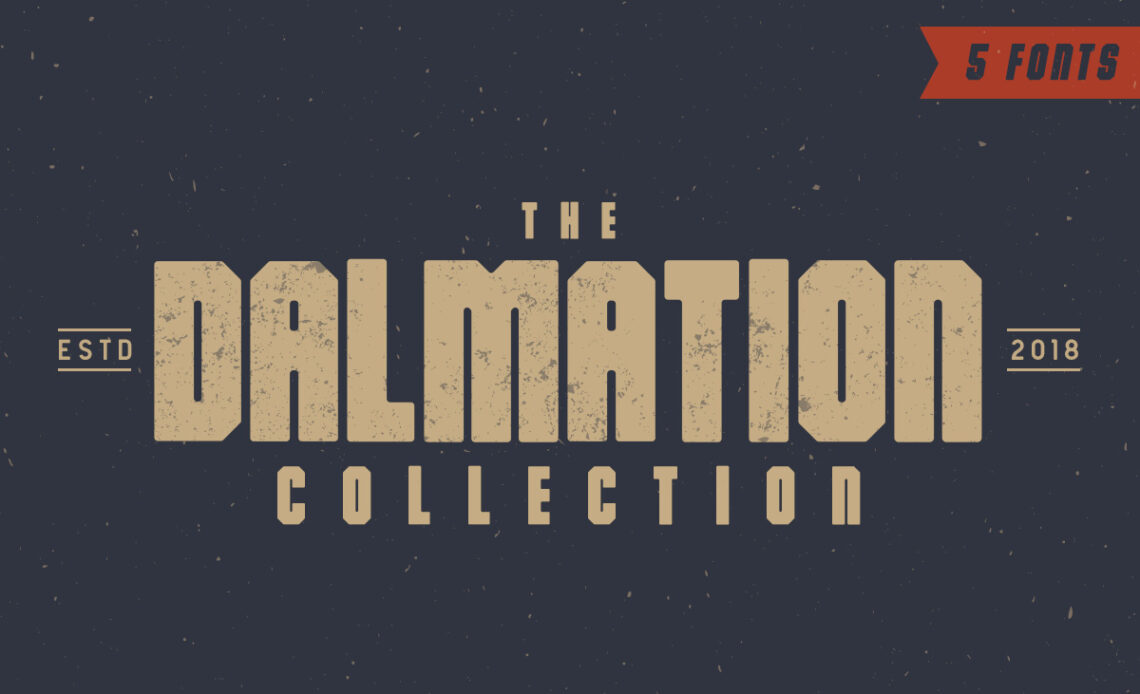
Immerse yourself in the captivating world of The Dalmation Font Collection, a treasure trove of creative expression designed to ignite your imagination and elevate your designs to new heights. Step into a realm where boldness meets elegance, where every letter dances with a vintage charm, whispering stories of a bygone era.
With its clean lines and undeniable charisma, The Dalmation Font Collection stands ready to transform your creative visions into tangible masterpieces. Each stroke, each curve, and each carefully crafted serif embodies the essence of style, sophistication, and timeless appeal. Unleash your inner artist and let your designs blossom under the radiant glow of this extraordinary font family.
Picture your words taking flight, adorned with the timeless beauty of The Dalmation Font Collection. Behold as your designs metamorphose into captivating works of art, radiating an aura of elegance and distinction. Whether you're crafting logos that demand attention, crafting digital content that resonates with your audience, or creating marketing materials that leave a lasting impression, this font family is your steadfast companion, guiding you towards creative excellence.
Embrace the boundless versatility of The Dalmation Font Collection. Its diverse range of styles dances across the creative spectrum, from classic serif to modern sans serif, from playful script to vintage decorative. Each font possesses a unique personality, ready to adapt to your every need. Experiment with different combinations, mix and match styles, and let your imagination run wild as you craft designs that are as captivating as they are unique.
As a creation of the renowned Factory738, The Dalmation Font Collection is a testament to artistic brilliance. Its intricate details, meticulous craftsmanship, and unwavering commitment to quality are evident in every curve and stroke. Trust in the expertise of Factory738 to deliver fonts that not only meet your creative demands but exceed them, propelling your designs to dizzying heights of success.